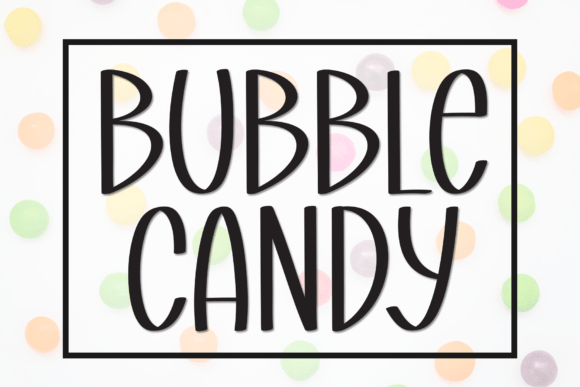
A Sweet Addition to Your Design Toolbox
Remember that moment when you’re brainstorming ideas for a special project and a burst of creativity hits you? Maybe it’s a wedding invitation, a birthday card, or a promotional campaign that needs a playful twist. Whatever it is, you know exactly what you’re looking for – a font that captures the essence of joy and charm. For designers, finding that perfect font can make all the difference in bringing a project to life.
Enter Bubble Candy Font, a delightful and personable handwritten display font that exudes a sense of fun and sweetness. This charming font is perfect for adding a playful touch to any design project, from wedding invitations to heartwarming cards. With its unique and whimsical style, Bubble Candy Font is sure to be a valuable addition to any designer’s toolkit, helping to bring a smile to the faces of your clients and their audience.
Bubble Candy Font Key Features
- Font Family: Bubble Candy Font is a unique, playful sans-serif font.
- Unique Characteristics: Features a distinctive rounded shape, with a subtle bubble-like effect, making it ideal for children’s books, party invitations, and other fun designs.
Bubble Candy Font Review
At first glance, Bubble Candy Font has a lot of charm ✨. The playful, whimsical feel to it is perfect for designs that need a touch of fun and personality. The font is highly customizable, with plenty of options for adjusting the size, color, and spacing to fit your needs. It’s also surprisingly versatile, working well in both digital and print designs.
One of the things that really stands out about Bubble Candy Font is its unique, hand-drawn feel ✨. Each letter and symbol has a distinct, organic shape that adds to the overall charm of the font. It’s perfect for designs that need to stand out from the crowd and grab the viewer’s attention.
- ⚠️ Limited character set: While the font is great for displaying short text snippets, it may not be the best choice for longer blocks of text due to the limited character set.
- ⚠️ Not ideal for body text: The font’s playful feel makes it better suited for headings and titles, rather than body text, where readability is more important.
Overall, Bubble Candy Font is a great choice for designs that need a touch of whimsy and personality ✨. While it may have some limitations, it’s a fun and versatile font that can add a lot of character to your designs.
The Bubble Candy Font is ideal for:
- Children’s party invitations.
- Playful social media graphics.